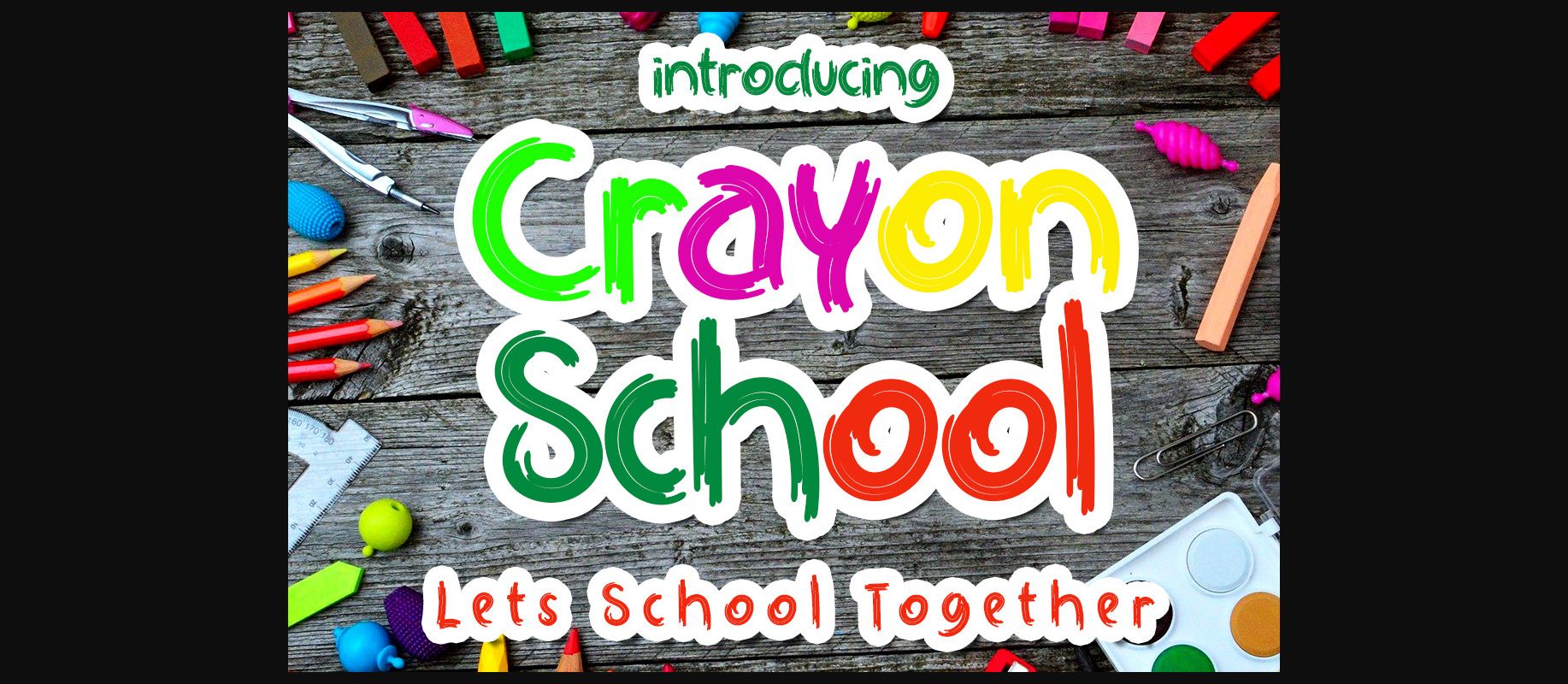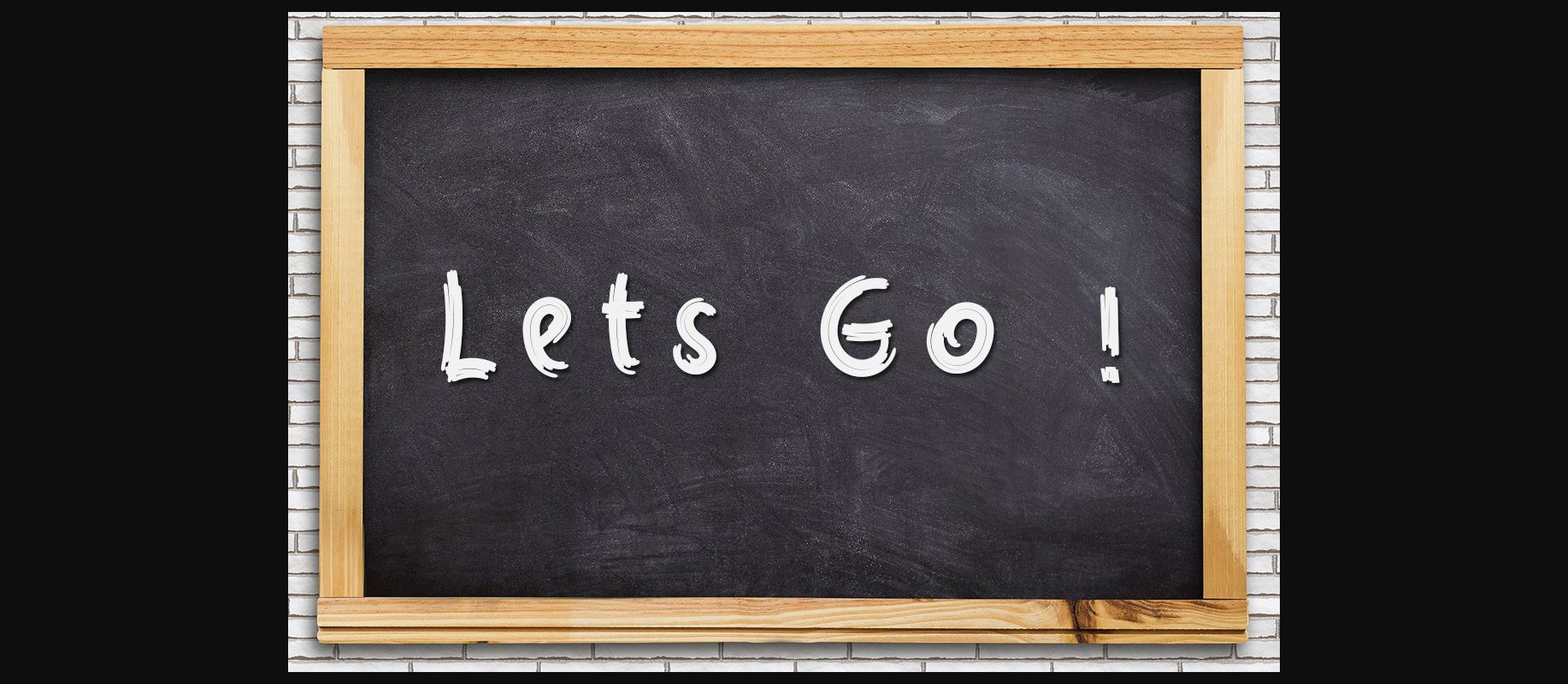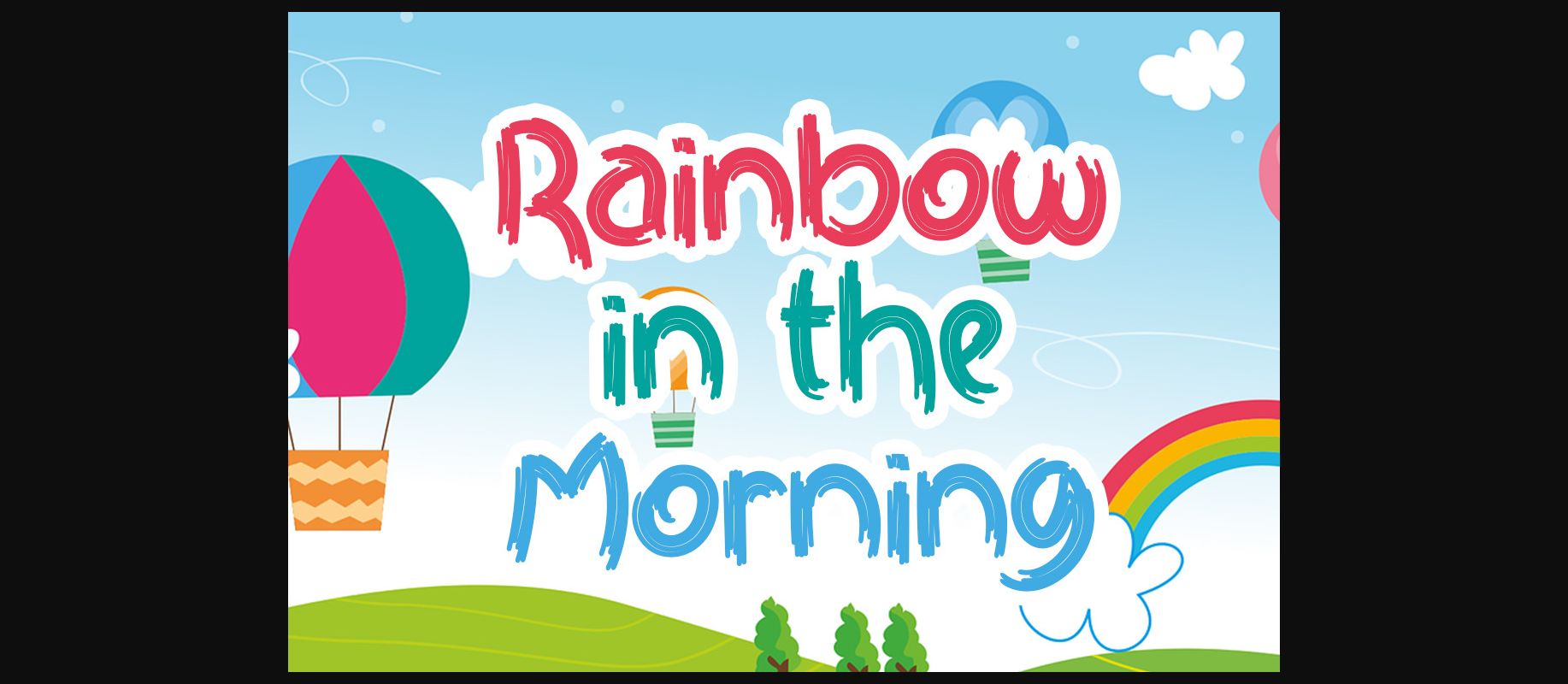
Crayon School Font
About Crayon School Font
Crayon School is a beautiful and sweet decorative font. It looks fresh, playful, and fun, and it will look great for both formal school projects or informal kid’s activity creations!